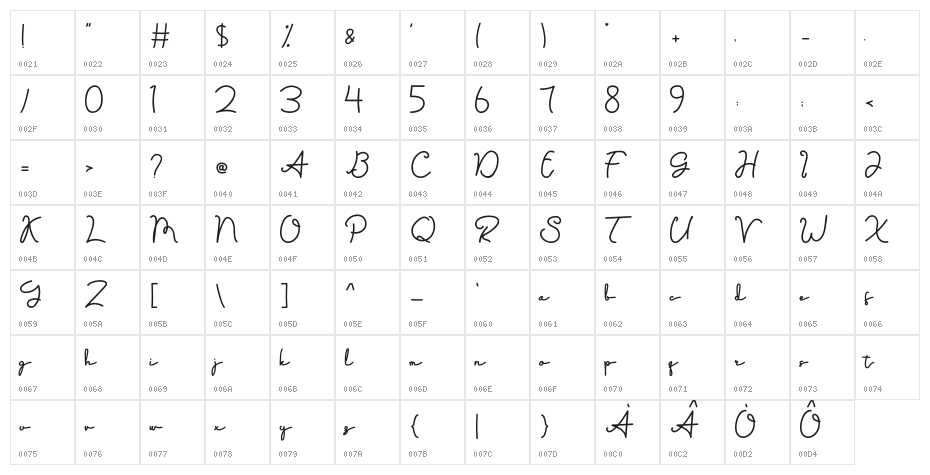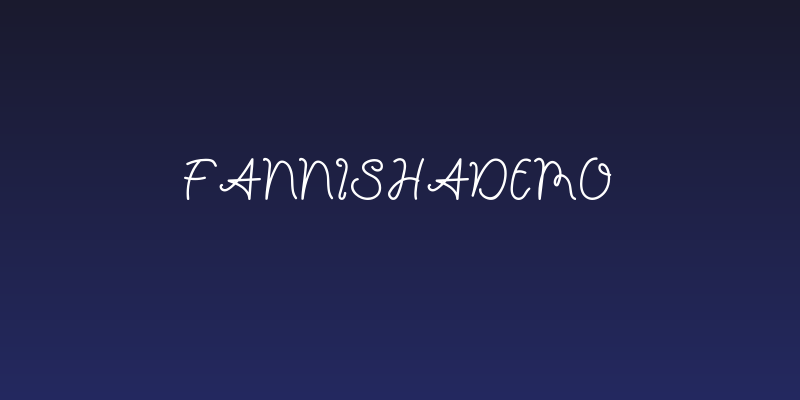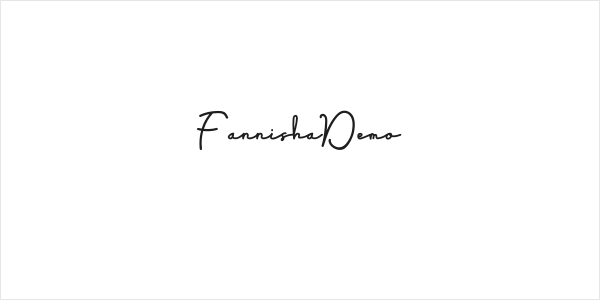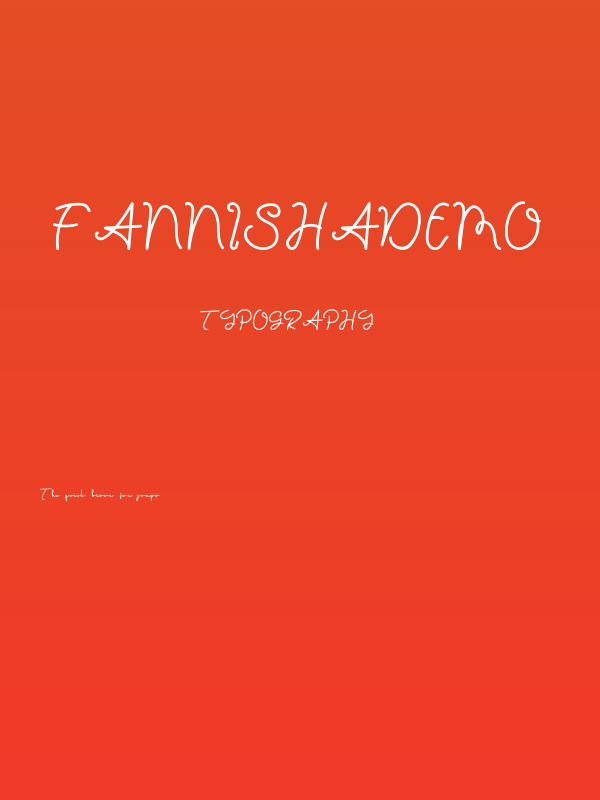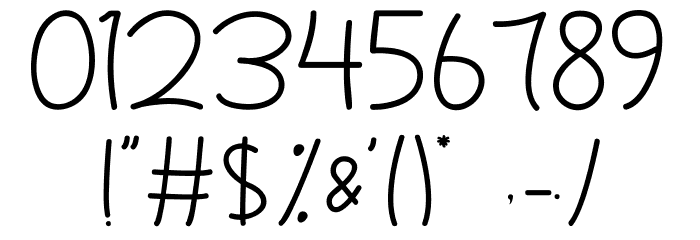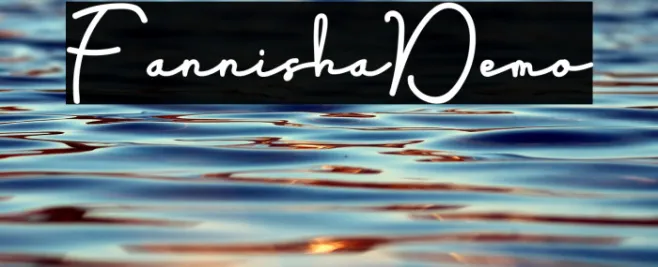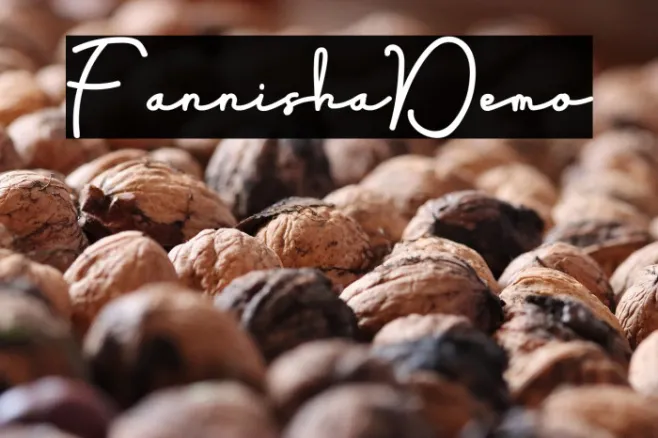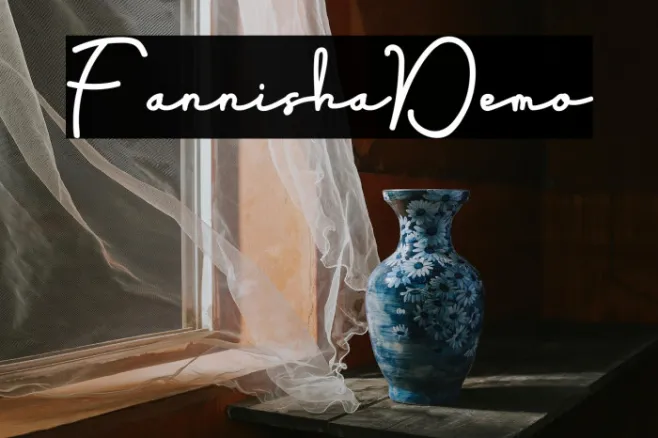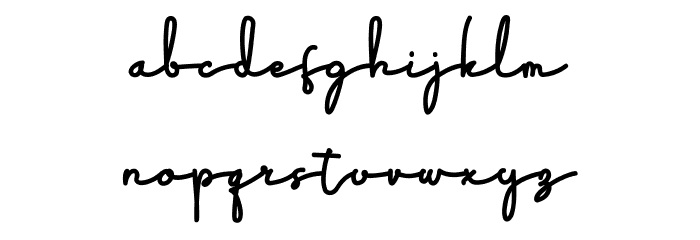
FannishaDemo Font
FannishaDemo Description
This font features a playful and elegant script style with a handwritten appearance. The uppercase letters are characterized by smooth, flowing lines and a slight slant, giving them a dynamic and lively feel. The lowercase letters maintain a consistent style, with rounded edges and a natural, cursive flow. The numerals are clear and legible, with a slight variation in stroke width that adds to the overall charm. Special characters are thoughtfully designed to match the whimsical aesthetic, making this font versatile for various creative projects.